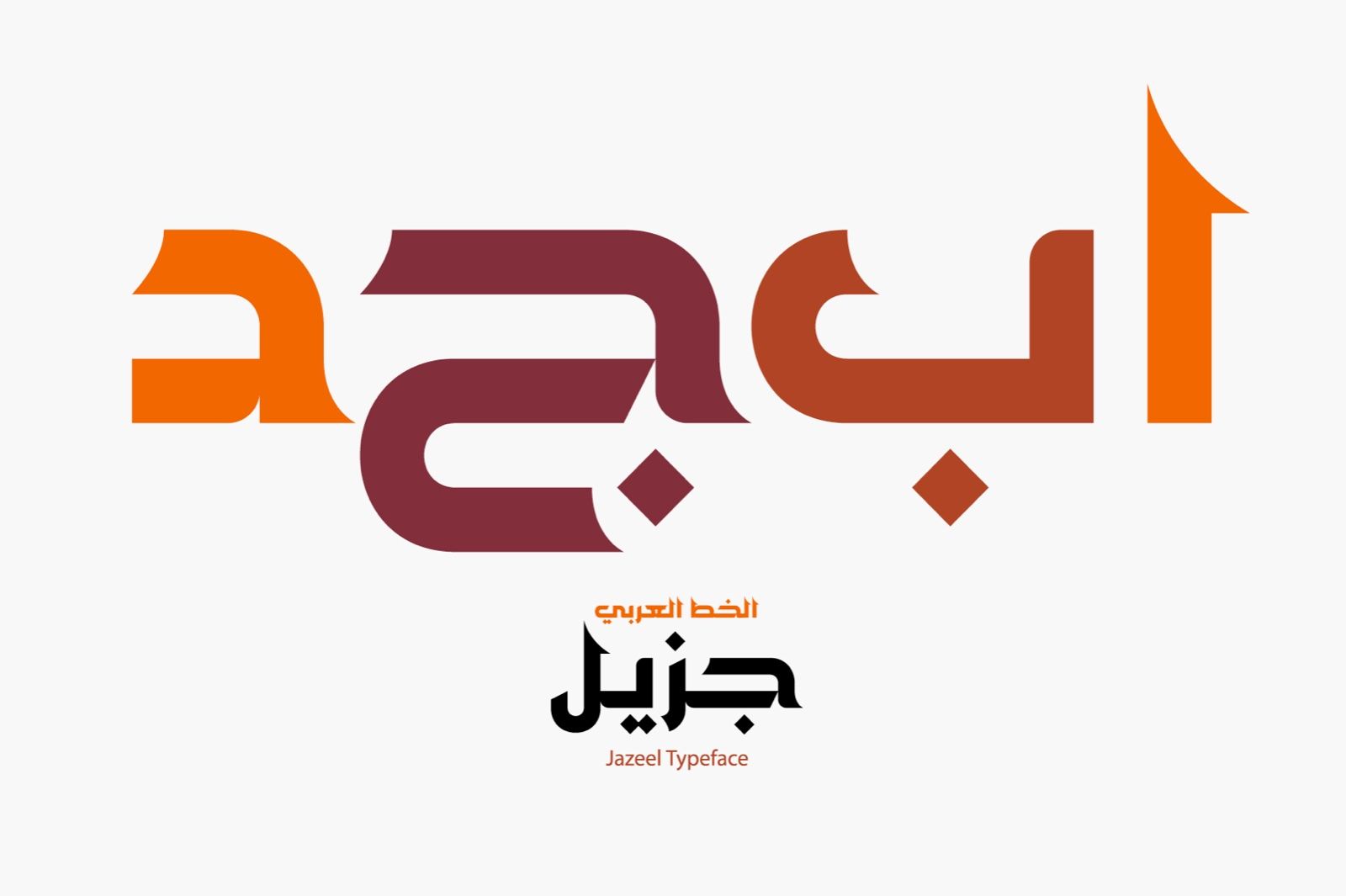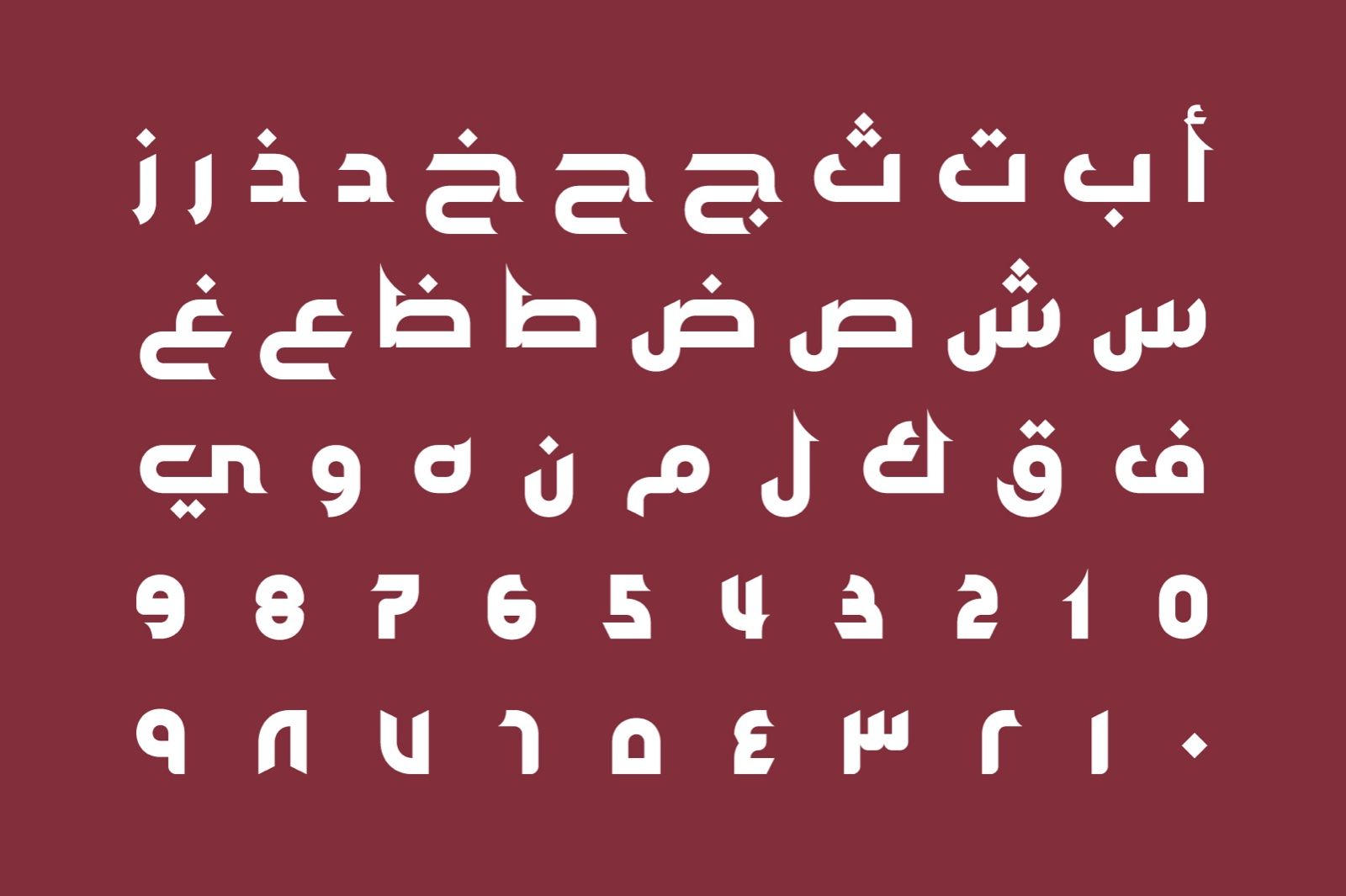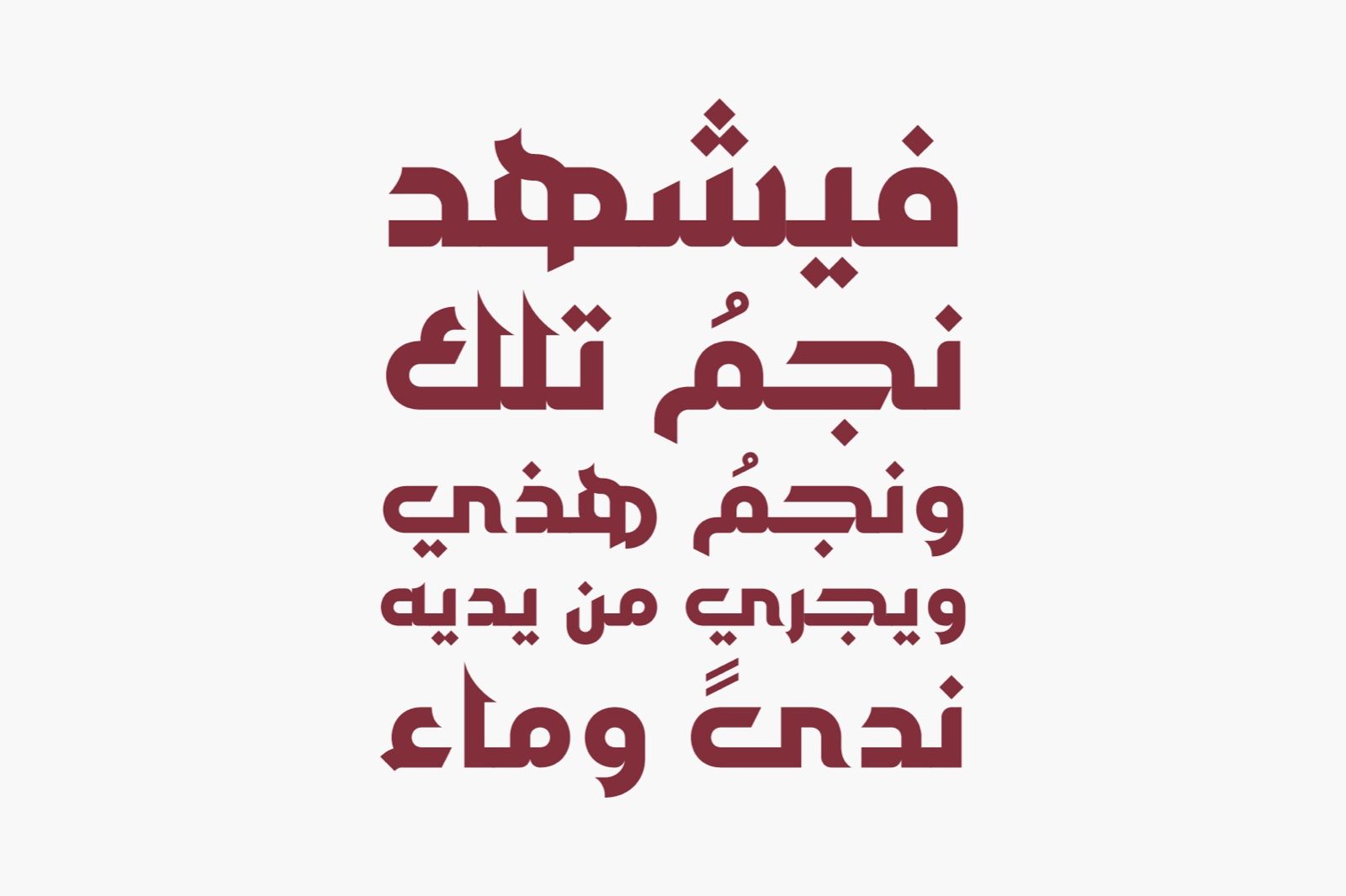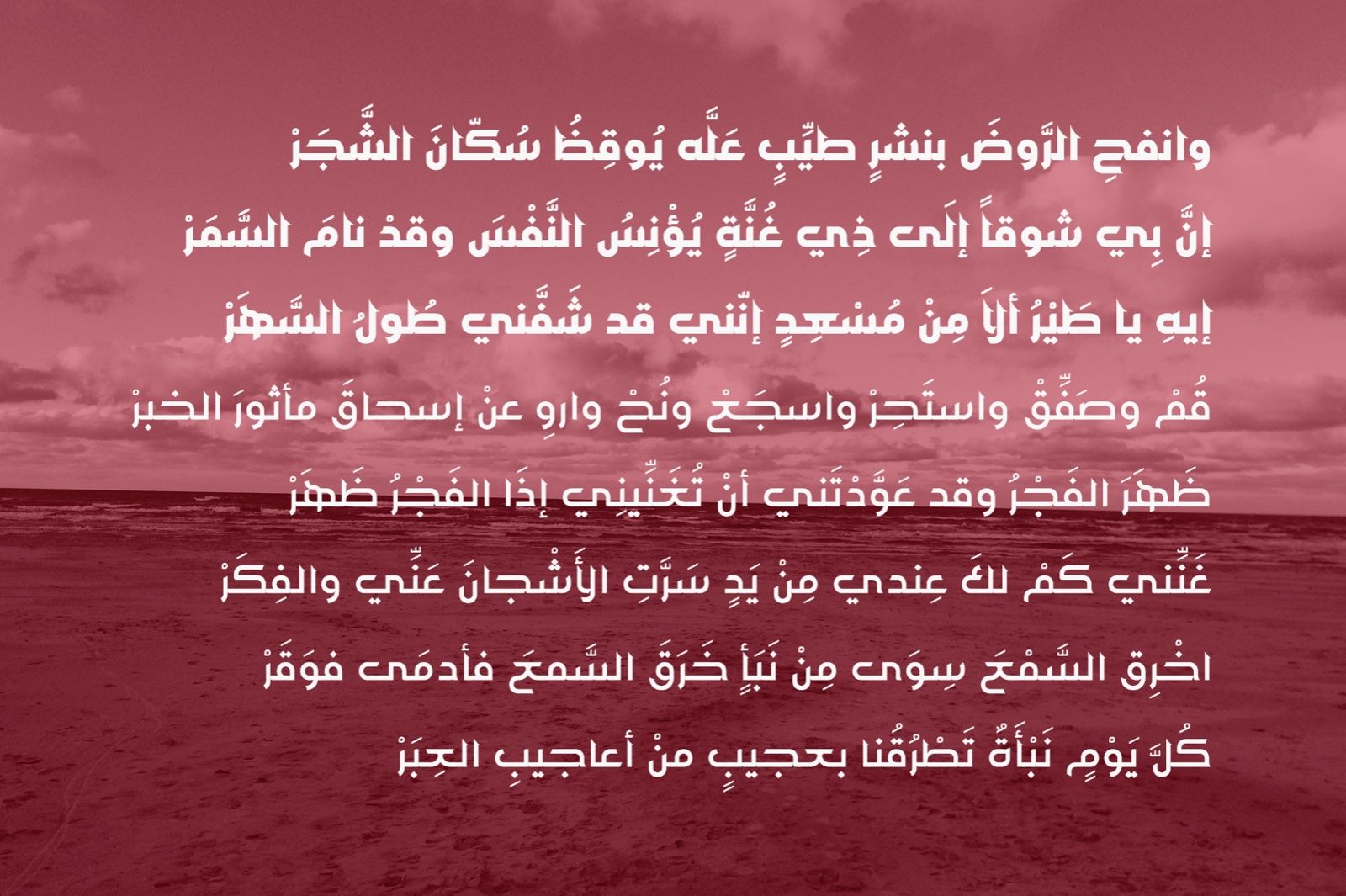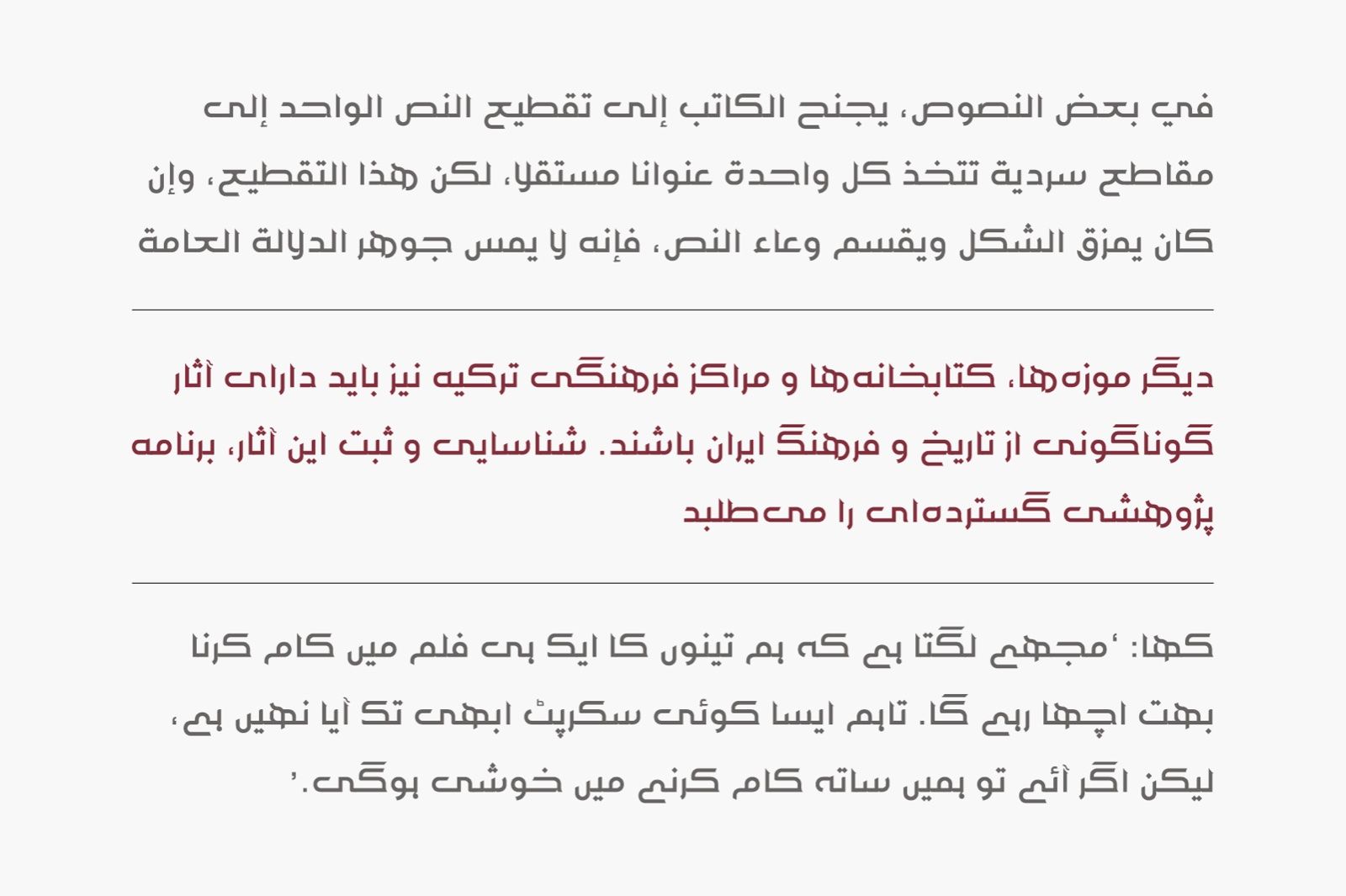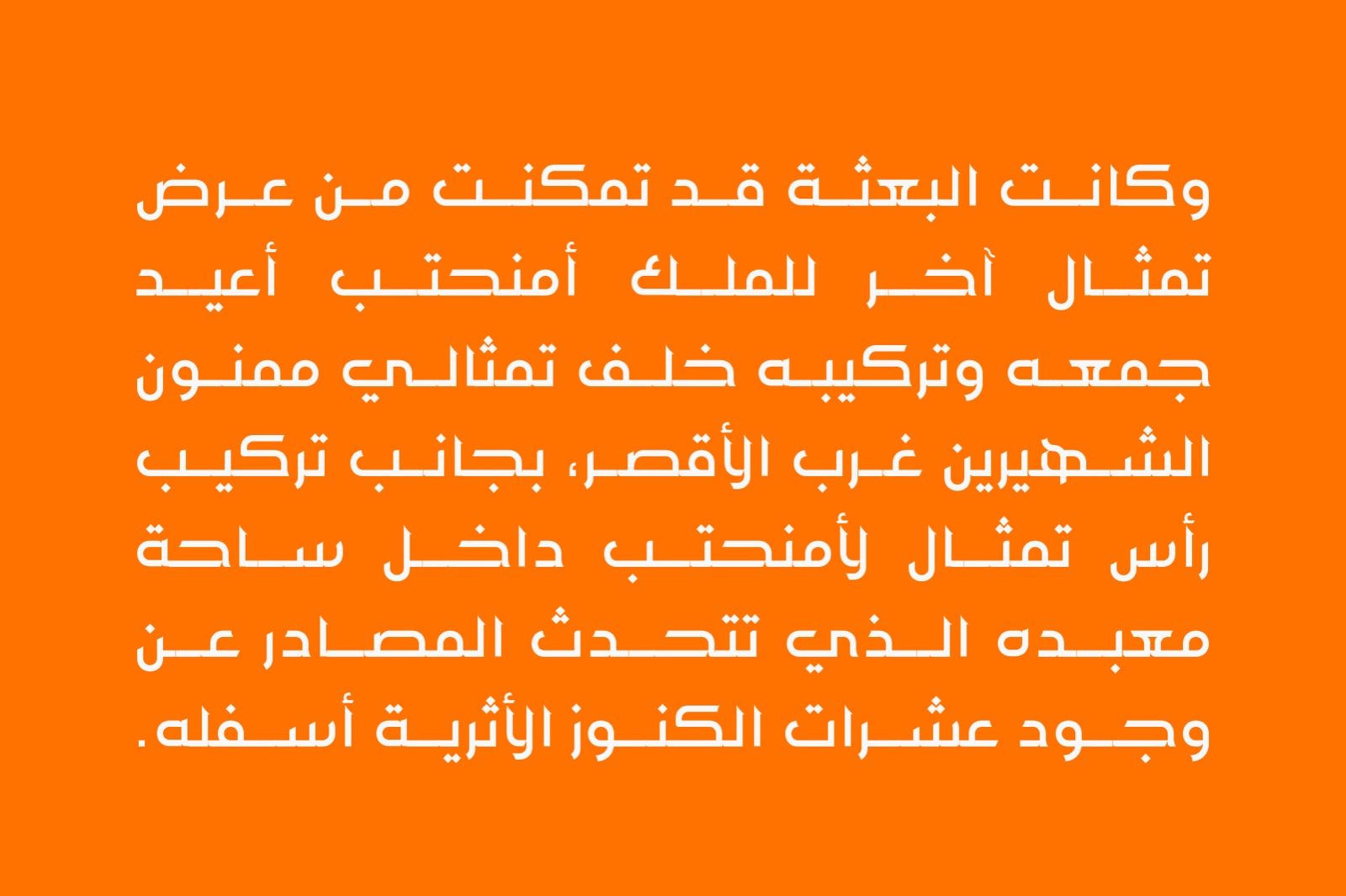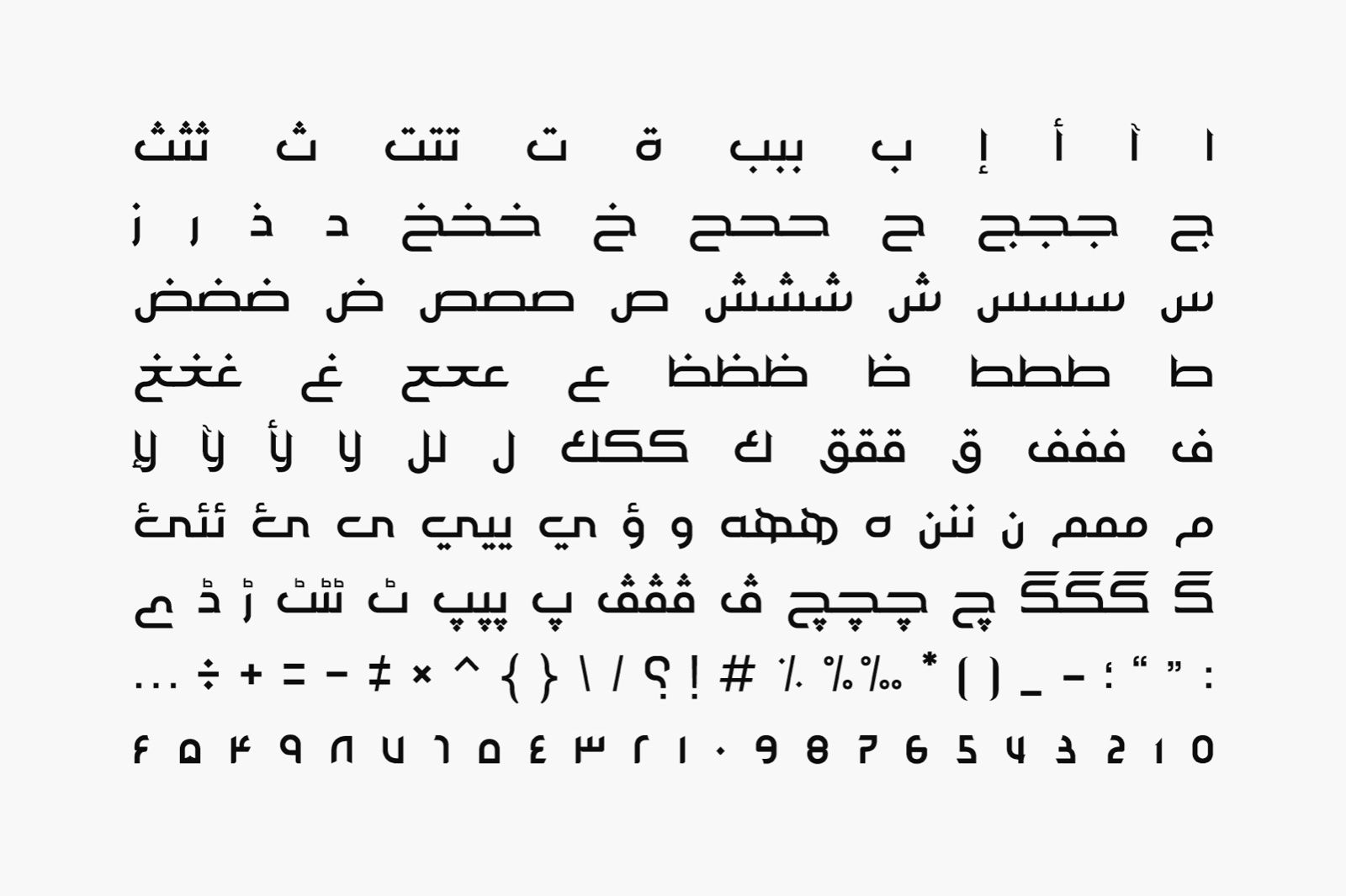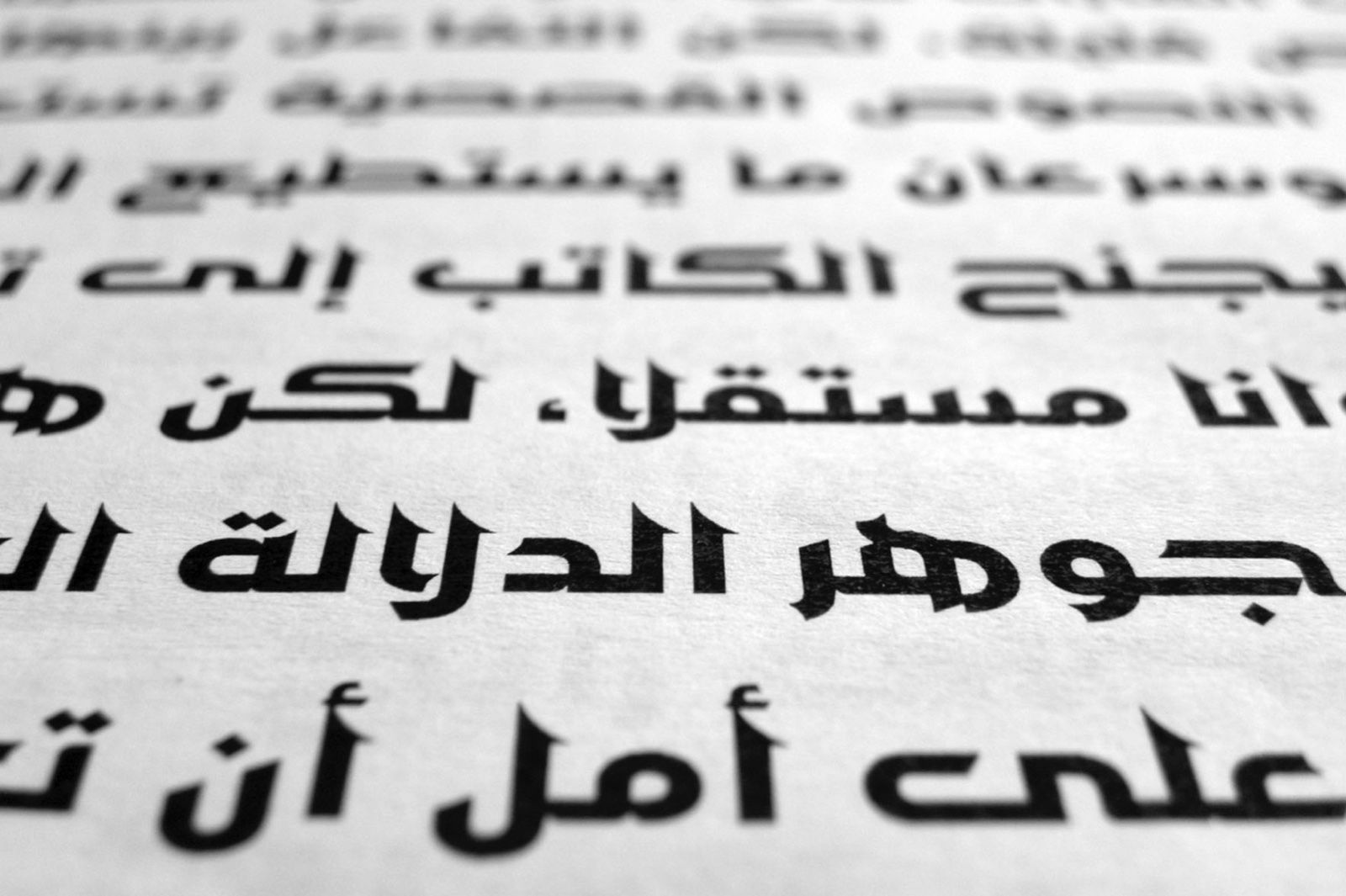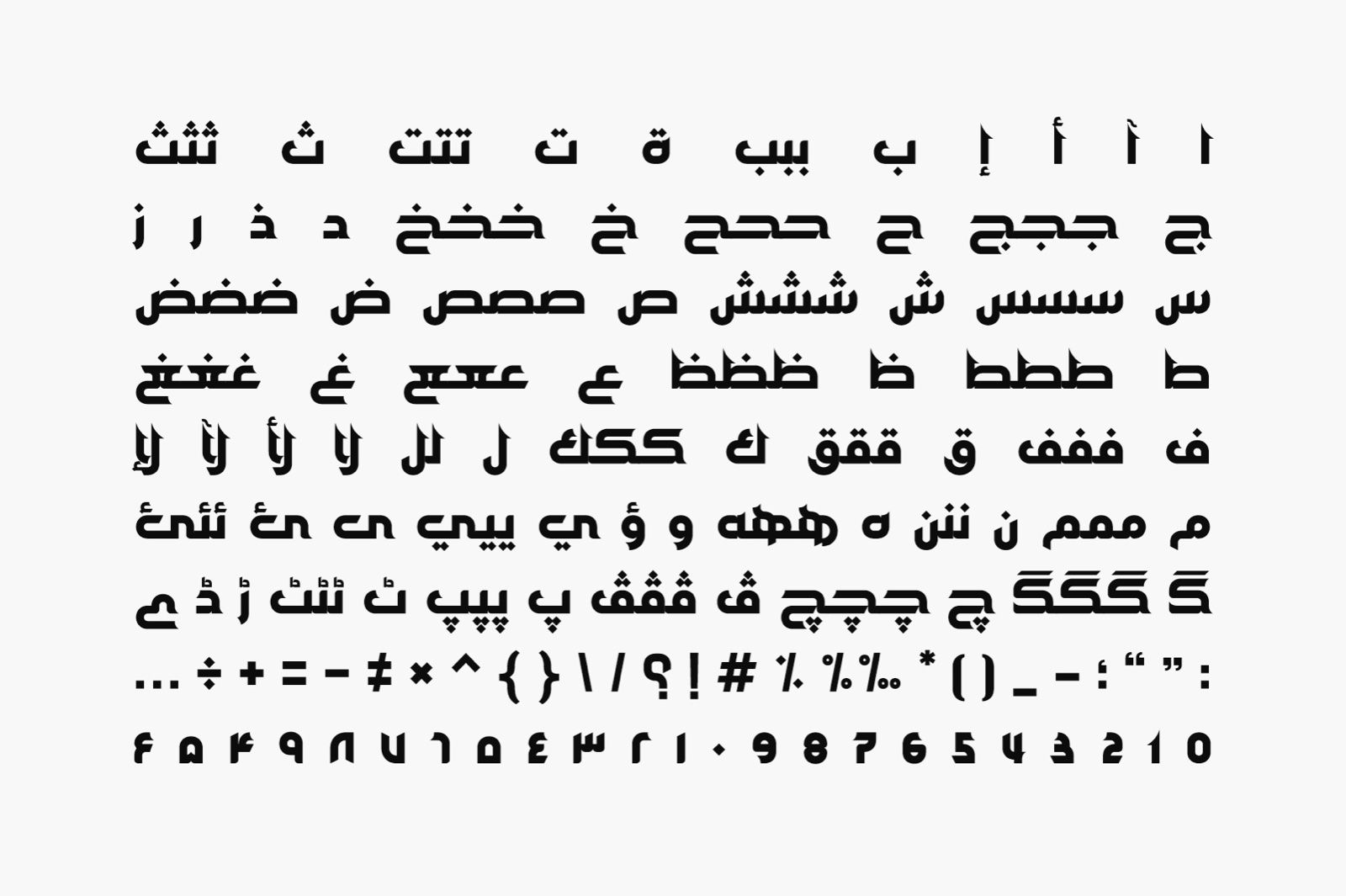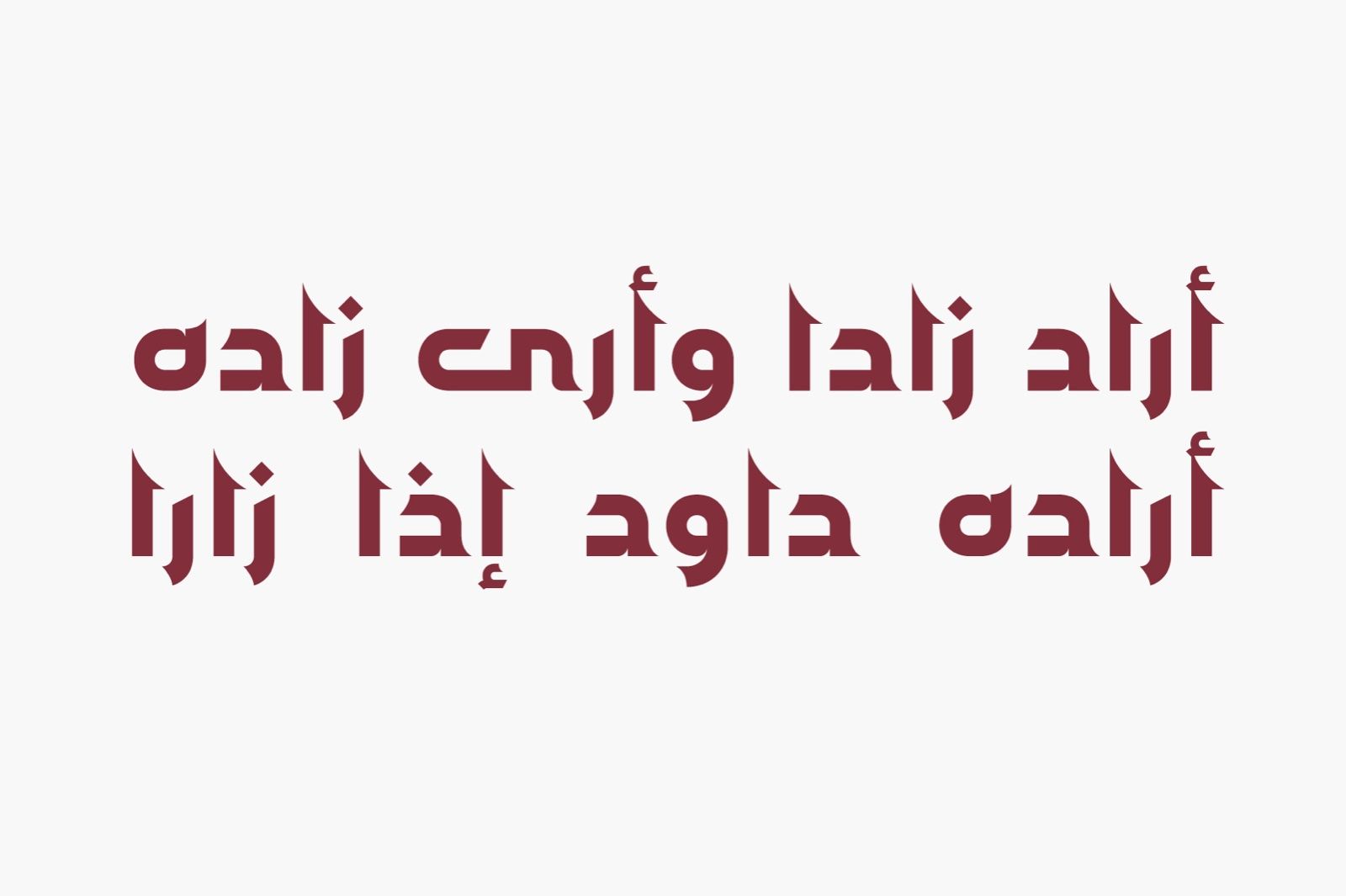
Jazeel is an Arabic typeface characterized by a robust geometric design. Its letters are defined by boldness and clarity, making it suitable for use in headings and body text across both print and digital platforms. The font is available in two weights: Regular and Bold.